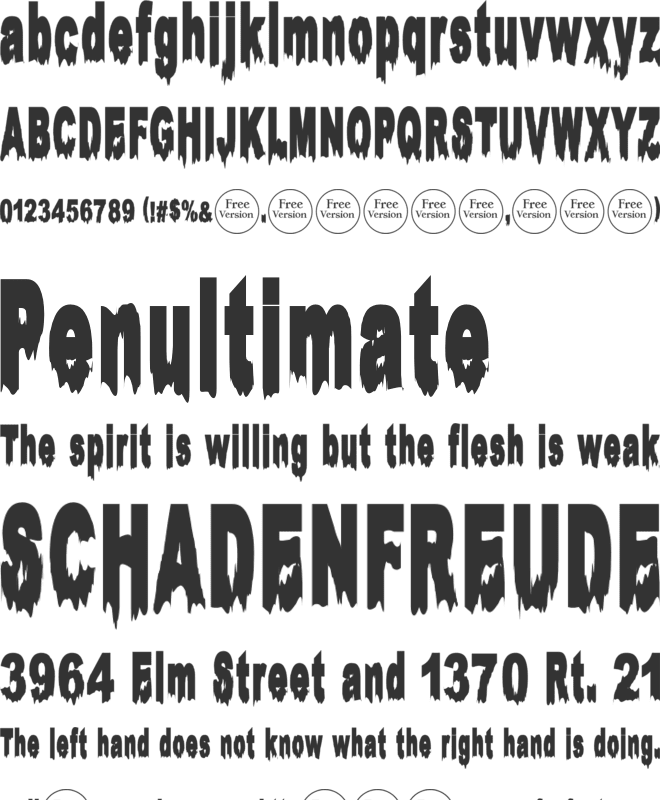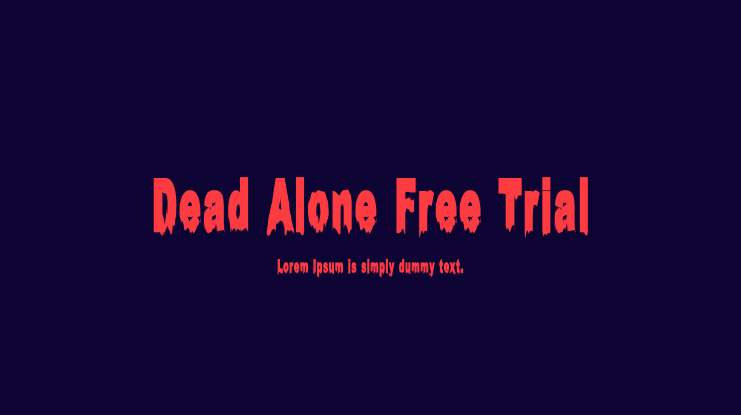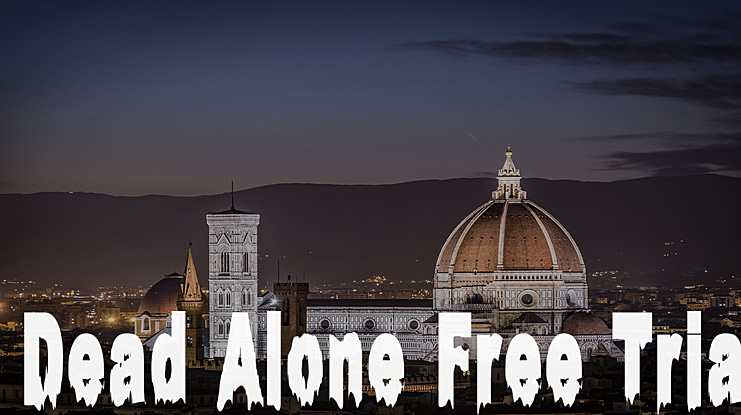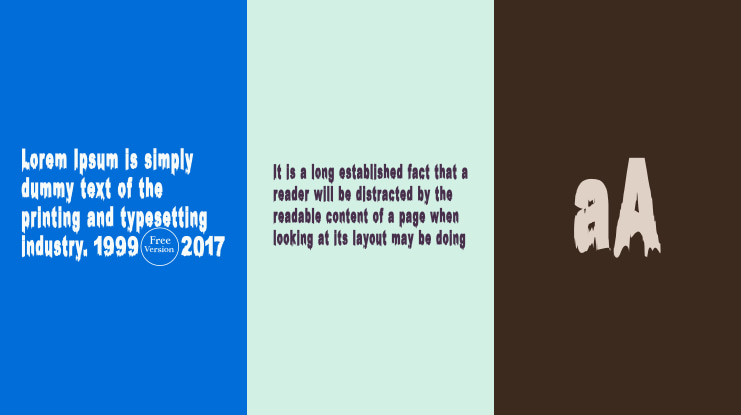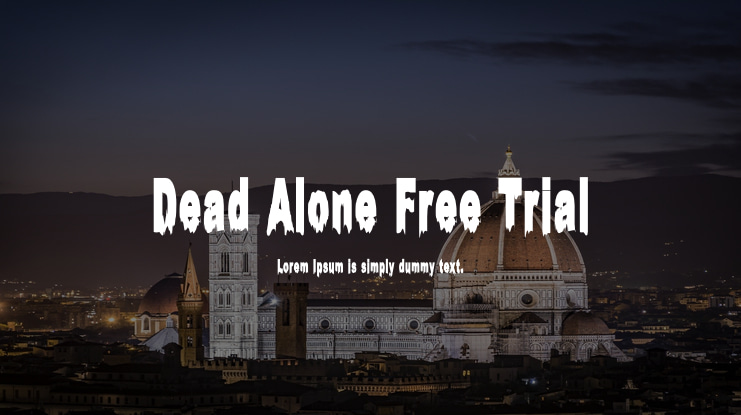
Dead Alone Free Trial Font
Dead Alone is a handmade horror font. It’s perfect for Halloween crafts, horror movie posters, t-shirts and anything else that needs to look spooky and spectacular!